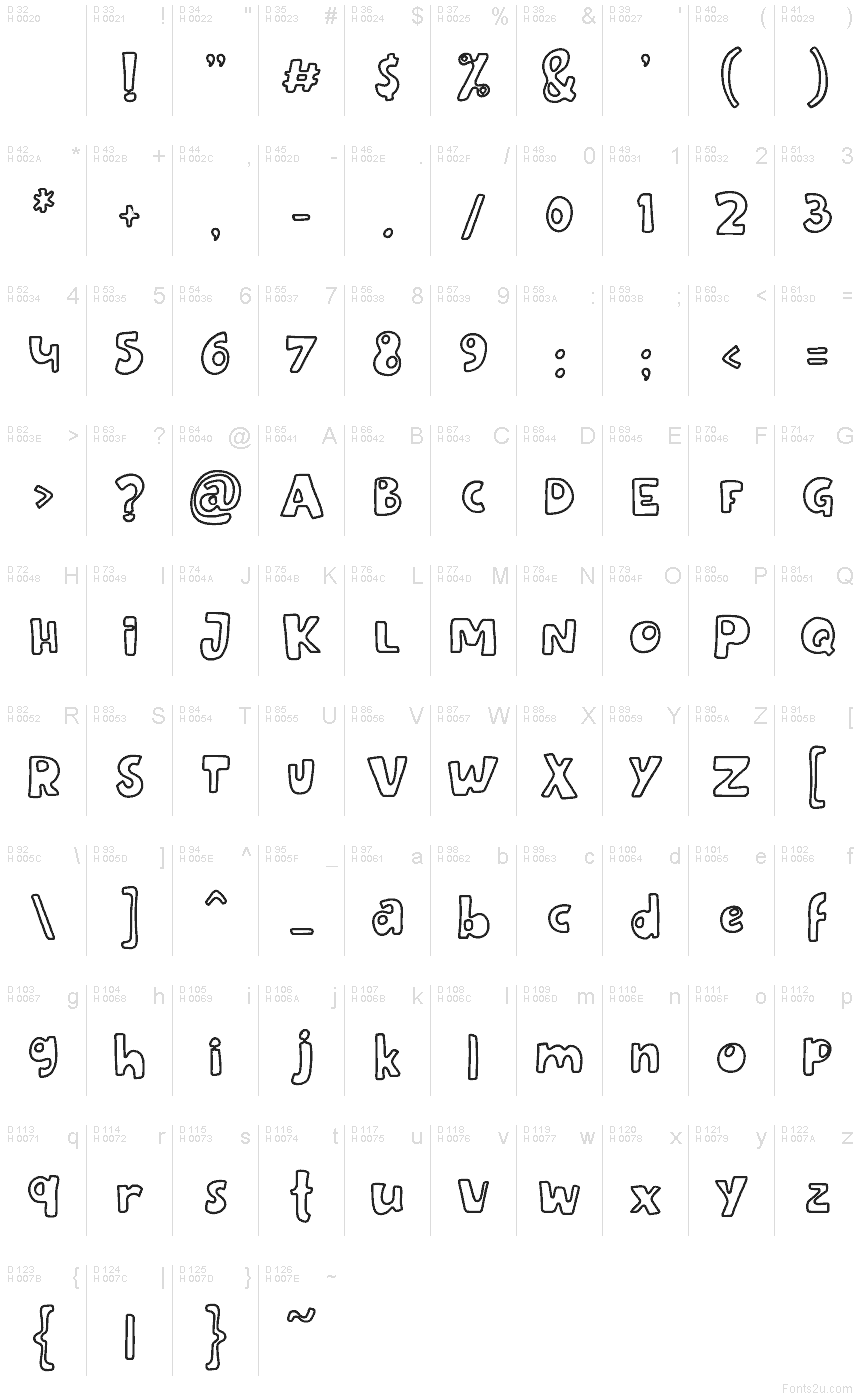
Opal Orbit Line
Opal Orbit Line font by PutraCetol Studio is a casual yet modern display cartoon free font with rounded outlined characters. The approachable style of this bold typeface can help any designer present a friendly and joyful mood or deliver an eye-catching both readable and attractive title.
Use Opal Orbit Line for headings, books, logos, product packaging, posters, games, magazine covers or inside pages. Additional use cases include exceptional large prints such as billboards and branding visuals that engage the modern audience.